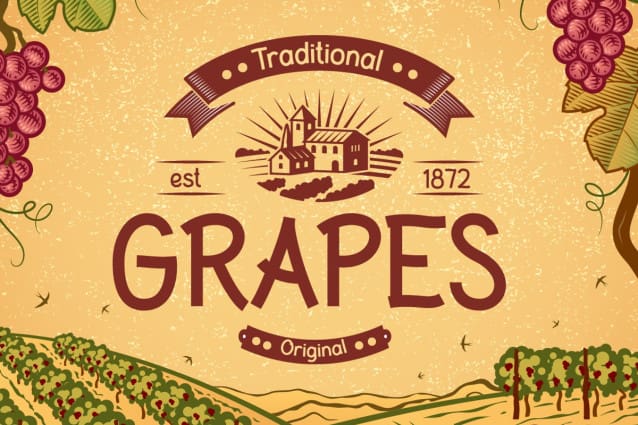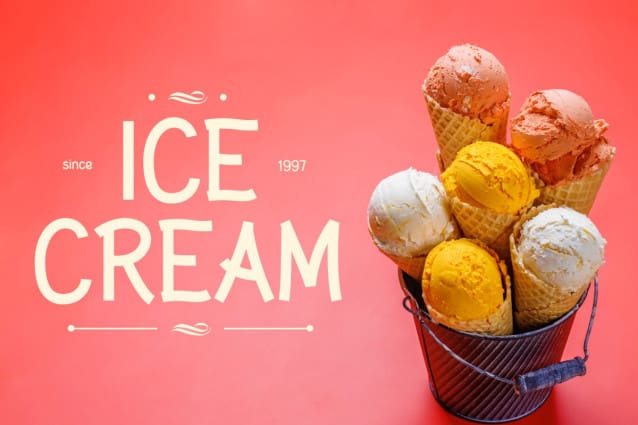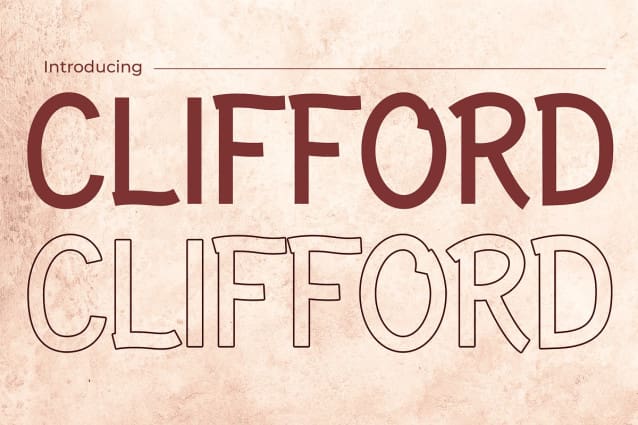
Clifford Display Font
Clifford Display Font a captivating display font that seamlessly blends vintage charm with modern sophistication. Each letter of Clifford Font is meticulously crafted to evoke the nostalgia of bygone eras while maintaining a contemporary appeal. Perfect for branding, posters, and editorial designs, Clifford Display Font adds a touch of timeless elegance to any project. Its classic yet versatile nature allows it to effortlessly enhance the visual aesthetic of various design compositions. Elevate your creations with the distinguished charm of CliffordFont and embark on a journey through the elegance of vintage typography.